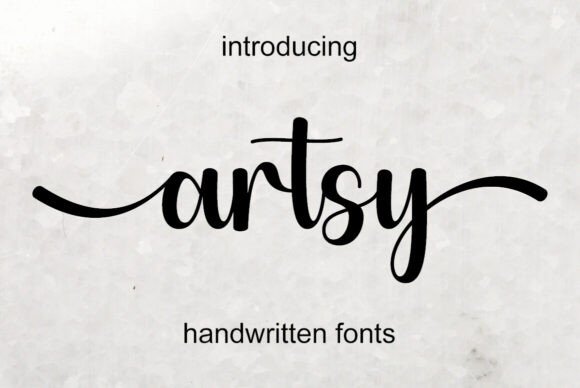
The Designer’s Delight: Unleashing the Whimsy of Artsy Font
I still remember the design project that led me to discover Artsy Font. I was working on a wedding stationery set for a client who wanted something elegant yet playful. As I scrolled through font options, Artsy caught my eye with its gentle curves and sweet stylistic appeal. I was immediately drawn to its joy-infused, romantic touch that seemed to perfectly capture the essence of the occasion. In this article, I’ll share my experience with Artsy Font, its features, and how to make the most of it in your designs.
An Honest Review of Artsy Font
As a designer, I appreciate fonts that bring a unique touch to my projects. Here’s what I love about Artsy Font:
• ✨ Beautifully whimsical and cursive hand-lettered style
• ✅ Enhances branding aesthetics, logo designs, wedding stationery, greeting cards, and fashion lookbooks
• ✅ Seamlessly unites elegance and casual flair, making it versatile for various design projects
• ✅ OpenType features and glyphs for added creativity and customization
While Artsy Font is a stunning addition to any design project, there are a few quirks to consider:
• ⚠️ Some users may find the font a bit too ornate for very minimalist designs
• 🤔 Limited use of uppercase letters, which may require creative workarounds for emphasis
The Story Behind Artsy Font
Artsy Font was designed with the intention of capturing the whimsy and romance of hand-lettered typography. Its creator aimed to craft a font that would bring a touch of elegance and playfulness to various design projects. With its unique blend of cursive and script elements, Artsy Font has become a popular choice among designers and crafters.
What makes Artsy Font unique? Artsy Font stands out with its beautifully whimsical, cursive hand-lettered style and sweet stylistic appeal.
Is Artsy Font suitable for body text? While Artsy Font is stunning for headings and titles, it may not be the best choice for body text due to its ornate nature.